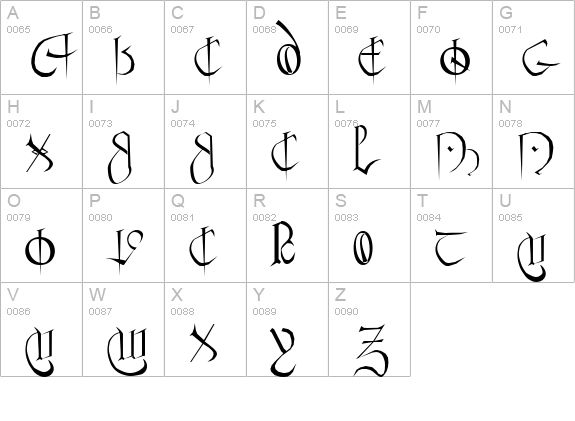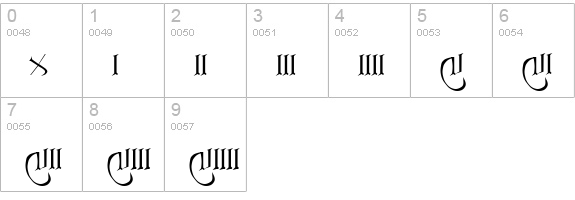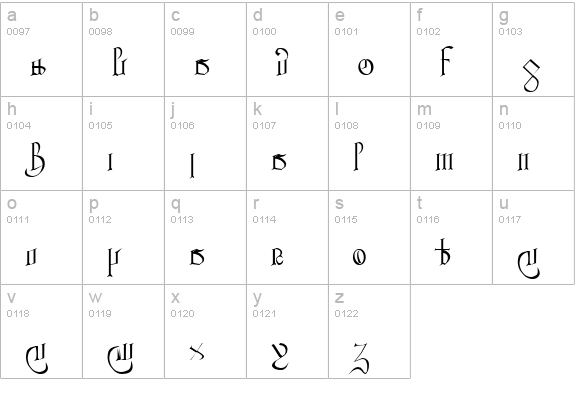
Courthand Plain: Font Details
Courthand Plain is a classic and elegant font that exudes sophistication and professionalism. With its clean lines and timeless appeal, this font is perfect for a wide range of design projects, from business cards to invitations to signage. Its simple yet refined design makes it versatile and easy to read, making it an excellent choice for both print and digital applications. Best of all, Courthand Plain is available for free download at FontsMarket.com. This means that you can easily access this beautiful font without any cost, adding a touch of class to your projects without breaking the bank. Don't miss out on this opportunity to elevate your designs with Courthand Plain – download it today and see the difference it can make!